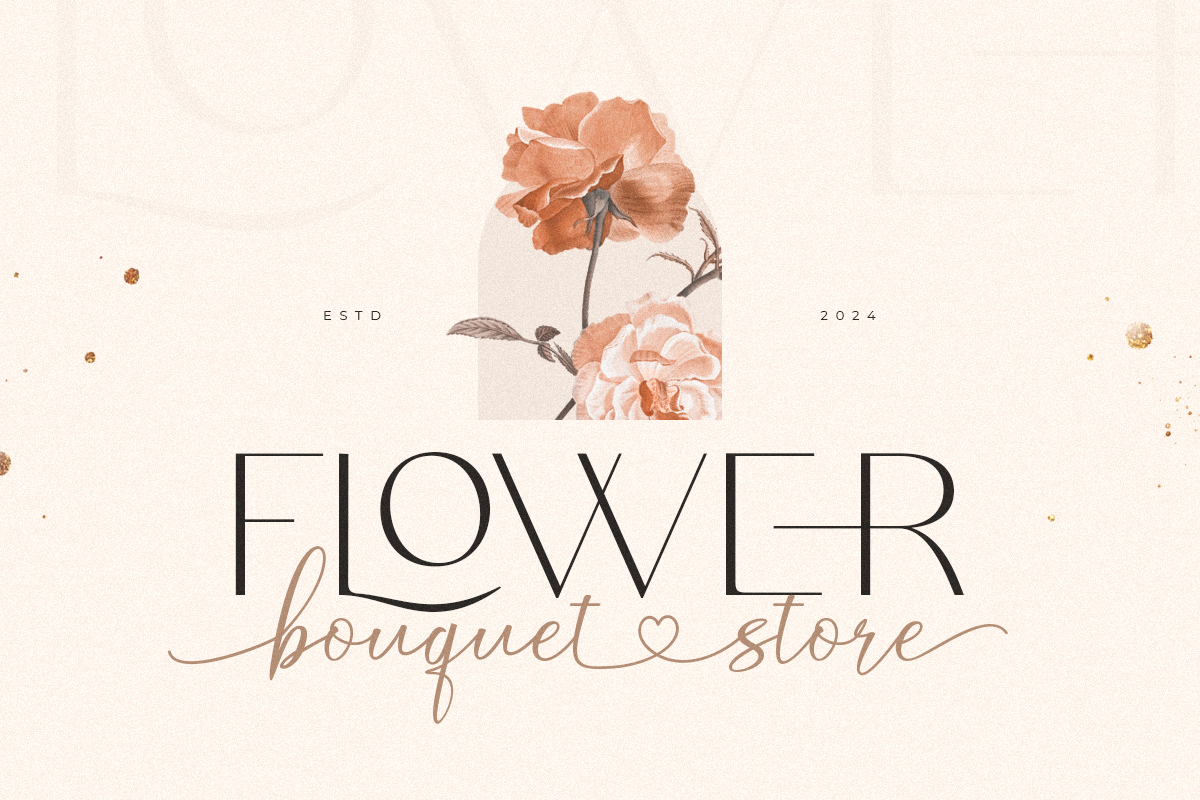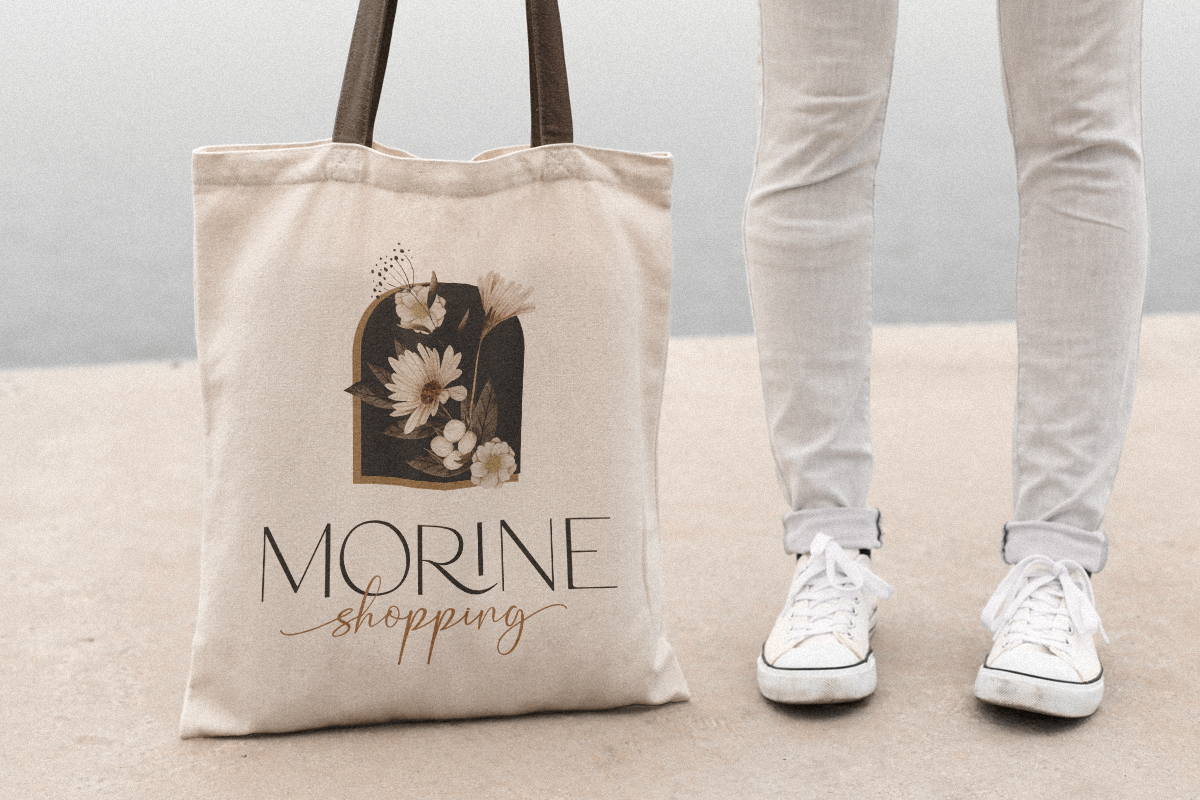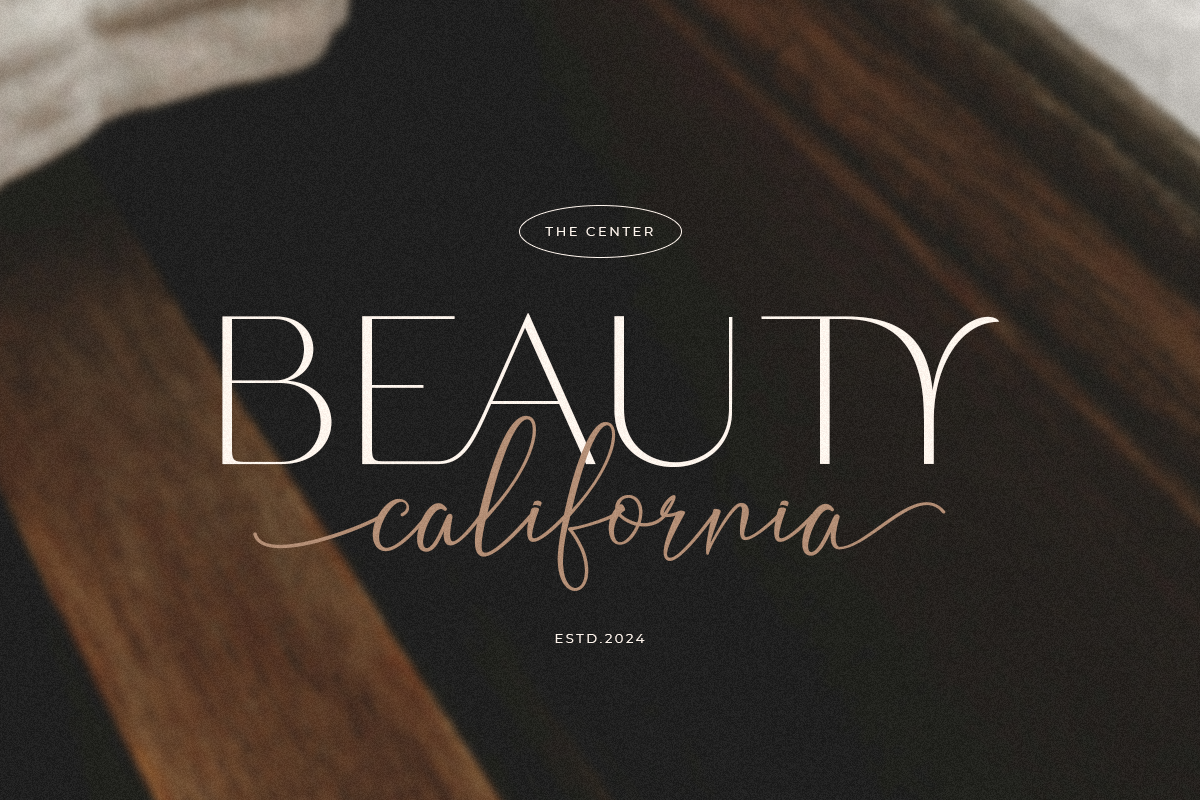
Me You Forever is a unique and elegantly crafted font duo, perfect for branding, logo design, and romantic occasions like Valentine’s Day.
As graphic designers frequently requested to create modern and classy designs, we developed this typeface to blend uniqueness with sophistication. Through thoughtful brainstorming, we designed Me You Forever to elevate branding and logo projects with its refined and contemporary aesthetic.
- A stylish Ligature Sans Serif and a graceful Beauty Script font pair
- Unique ligatures and decorative swashes
- Standard uppercase and lowercase letters
- Numerals and punctuation